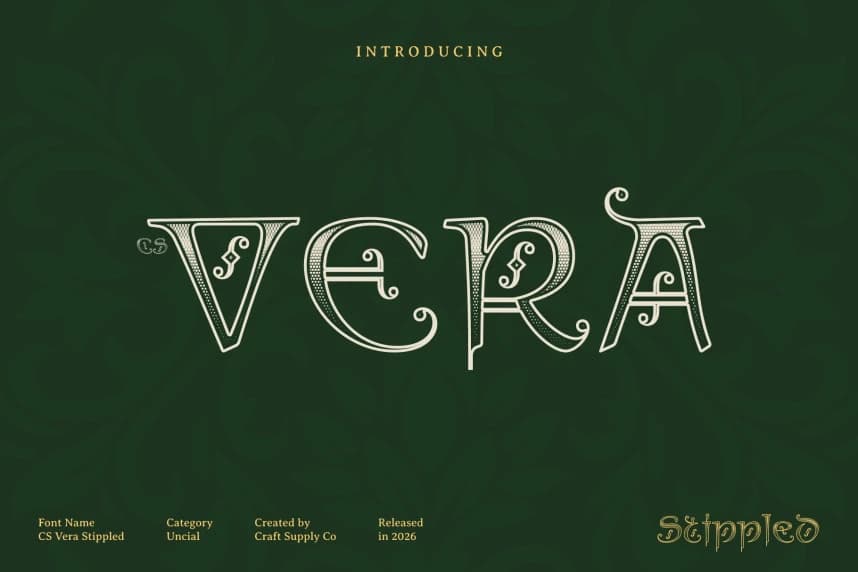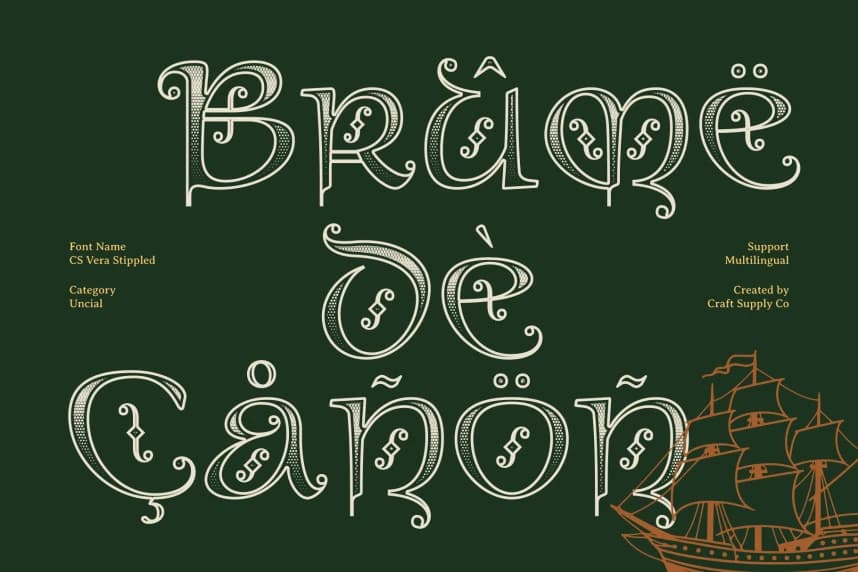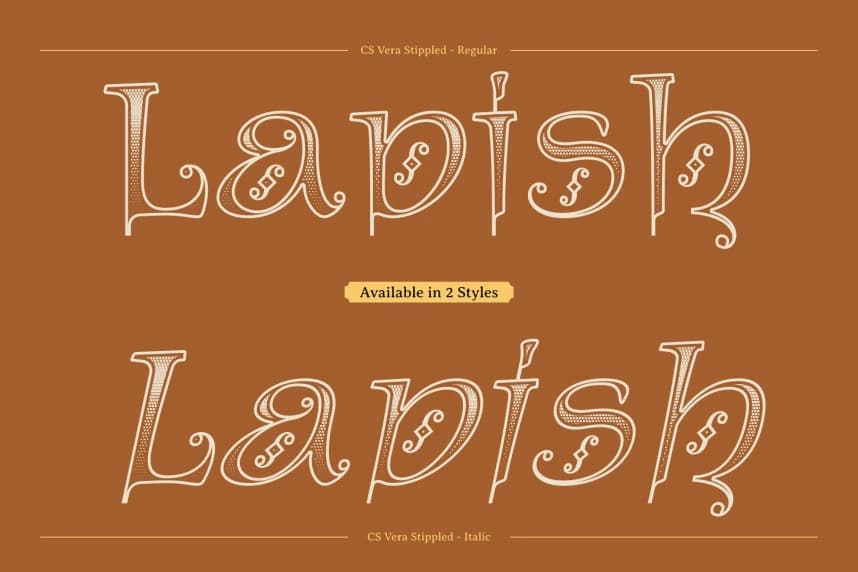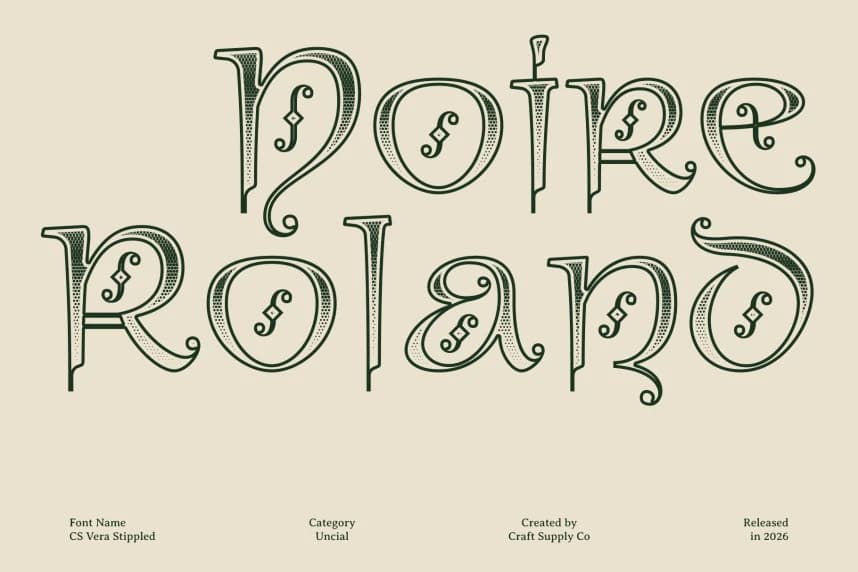
CS Vera Stippled Font
CS Vera Stippled Font – Uncial Font with Elegant Textured Nostalgia Classic Uncial Style with Stippled Character. This is a classic uncial display font inspired by the graceful letterforms of medieval manuscripts.